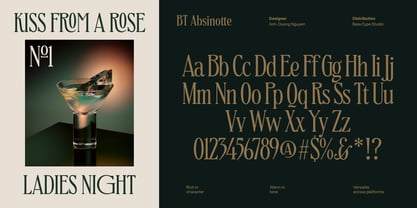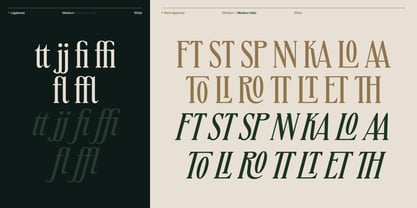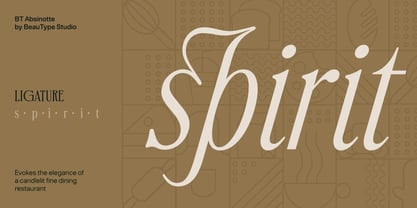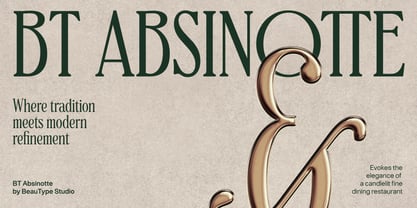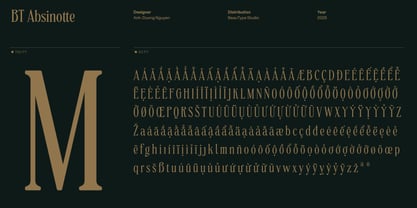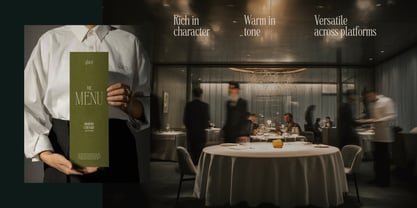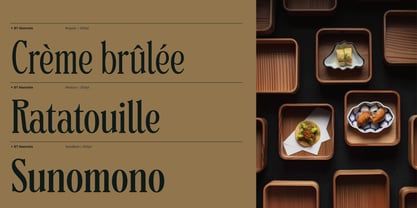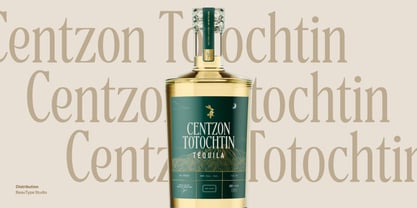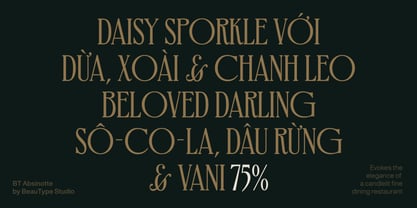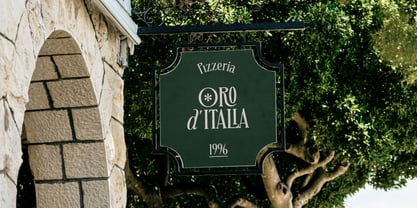
BT Absinotte
by BeauType
The BT Absinotte Font Family was designed by Duong Nguyen and published by BeauType. BT Absinotte contains 14 styles and family package options. More about this family
BT Absinotte evokes the elegance of a candlelit Italian restaurant, where tradition meets modern refinement. Its graceful serifs and flowing details capture the artistry of fine dining—rich in character, warm in tone, and versatile across print and digital use. Inspired by the delicate curves of calligraphy and the timeless charm of trattoria signage, it balances elegance with a sense of hospitality, making it ideal for branding, menus, and editorial design.
Designers: Duong Nguyen
Foundry: BeauType